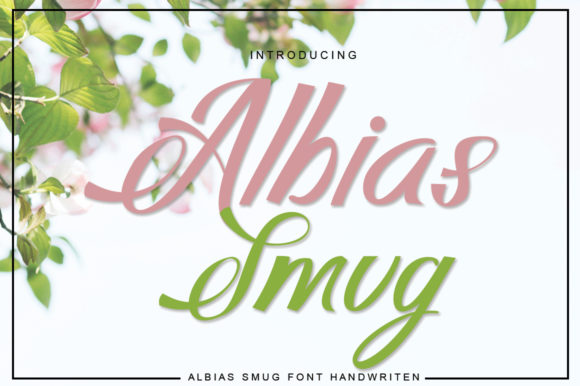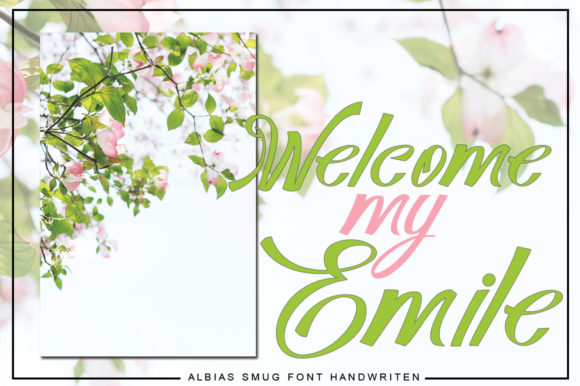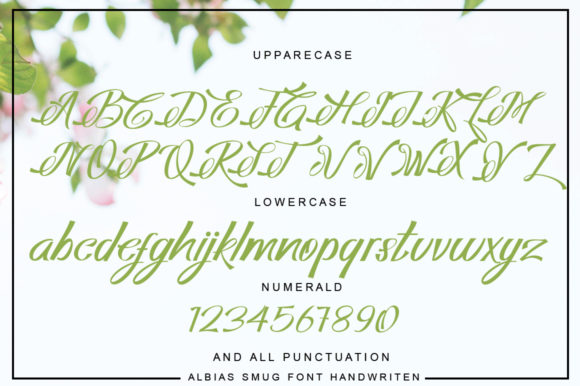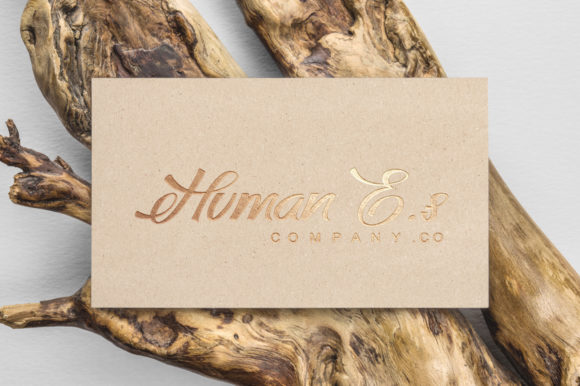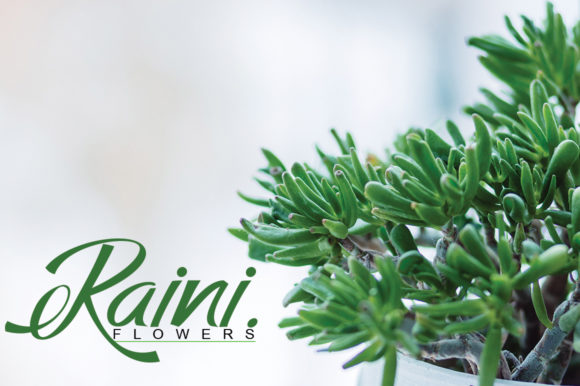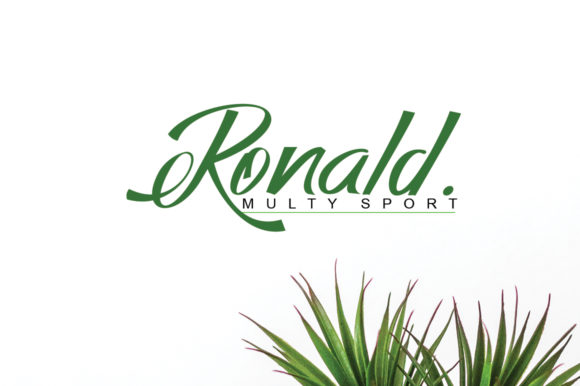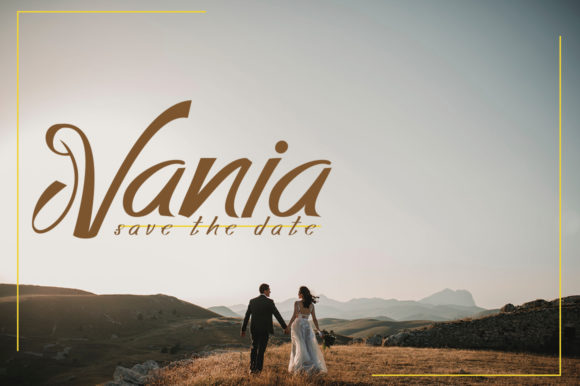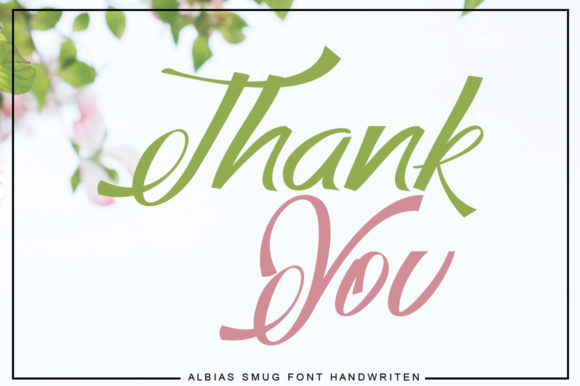
HomeScript FontsAlbias Smug Font Script Fonts Albias Smug Font FacebookXPinterestWhatsApp Albias Smug Font Poster 2 Albias Smug Font Poster 3 Albias Smug Font Poster 4 Albias Smug Font Poster 5 Albias Smug Font Poster 6 Albias Smug Font Poster 7 Albias Smug Font Poster 8 About Albias Smug Font Albias Smug is a cute script font. t’s the perfect font for adding some playful creativity to your designs. DOWNLOAD NOW People also explored Molleat Font Loverin Font Rozok Font Aml Monogram Font Bargo Font Vizarka Font Snogville Font Gridlocker Love Unicorns Font 275 0 TagsAlbias Smug Font Previous articleIkan Tongkol FontNext articleSaylena Font LEAVE A REPLY Cancel reply Comment: Please enter your comment! Name:* Please enter your name here Email:* You have entered an incorrect email address! Please enter your email address here Website: Save my name, email, and website in this browser for the next time I comment. Personal Use Free The Brighton Personal Use Free Read more about this font Dealerplate California Personal Use Free Read more about this font Maxwell Personal Use Free Read more about this font Homelands Personal Use Free Read more about this font BLOG 5 Fonts That Will Dominate Design Trends in 2026 5 Fonts for 2026 That Will Dominate Design Trends Typography plays a critical role in visual communication, and as we look ahead to 2026, it’s... Fonts That Capture the Spirit of New York City Modern Sans-Serif Fonts That Brands Love in 2025 Using Fonts in Digital Marketing: Tips to Strengthen Your Brand Identity